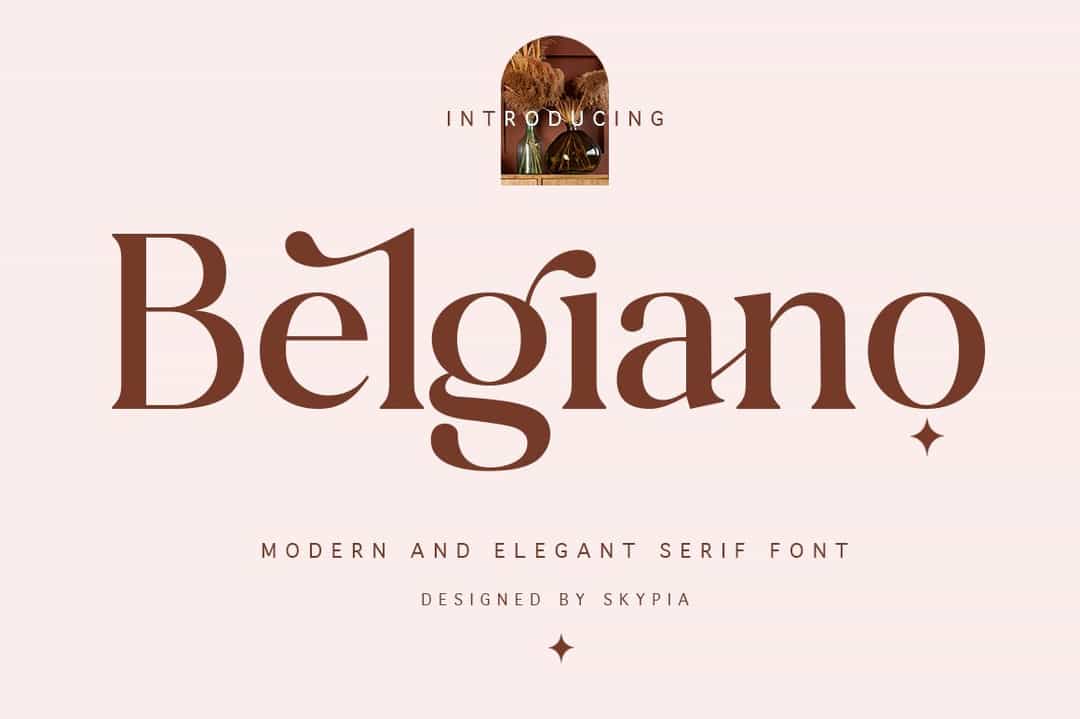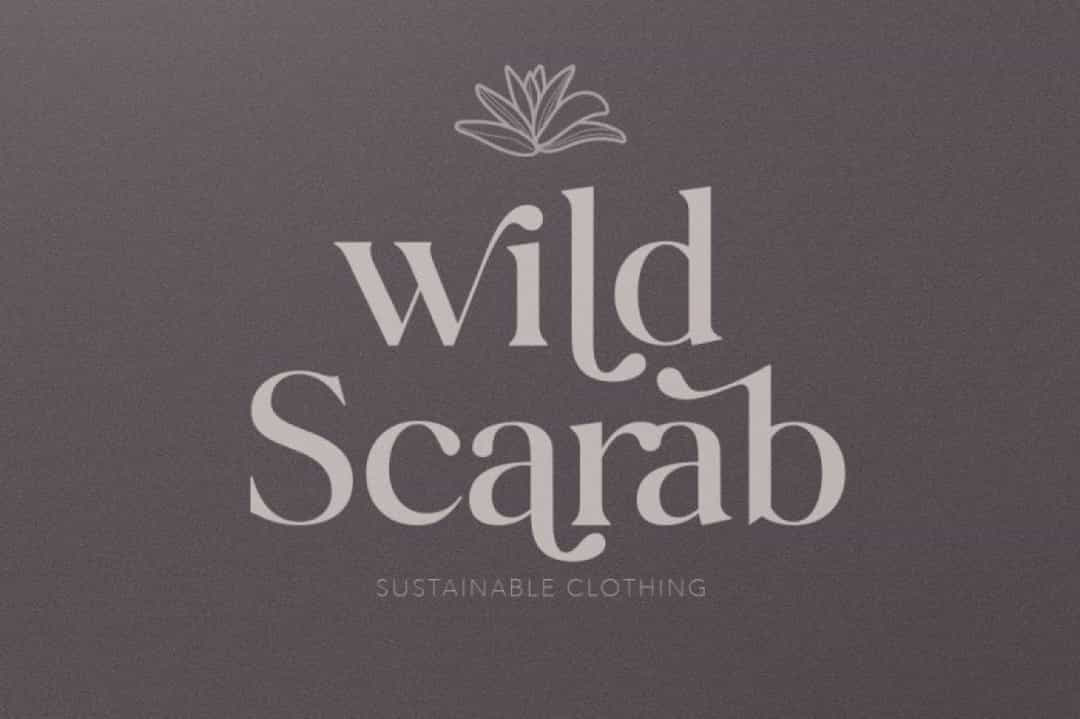
Belgiano can be described as an elegant and contemporary serif font. PUA encoded, this font provides access to all characters with ease – perfect for logos, branding invitations, masterheads and many other applications! Simply include it in your designs – you will love what comes out!